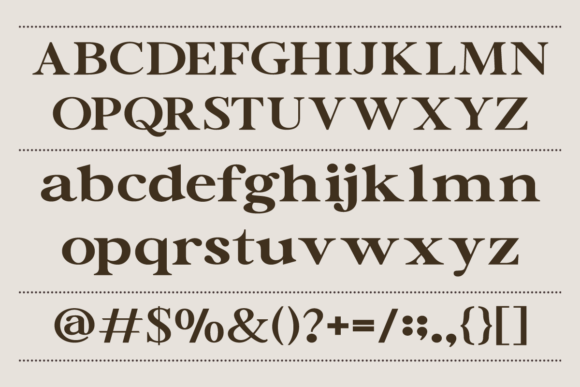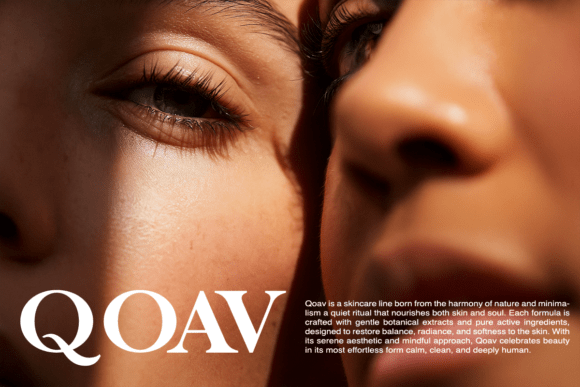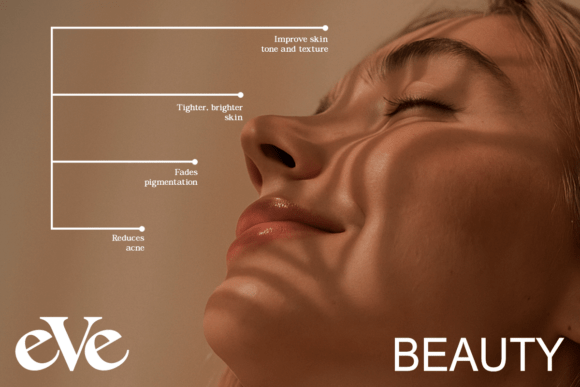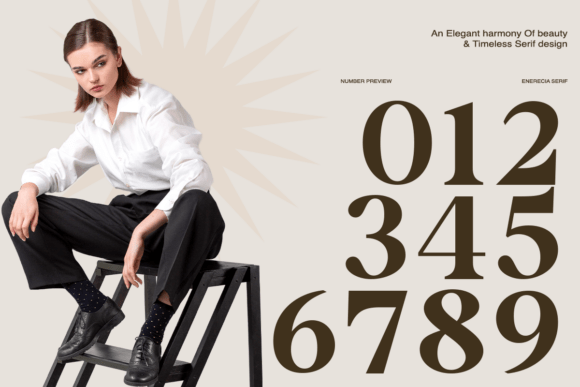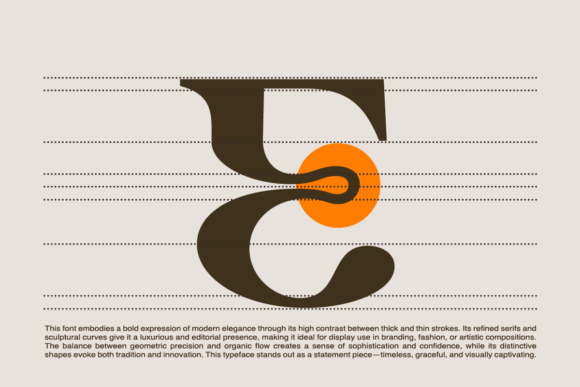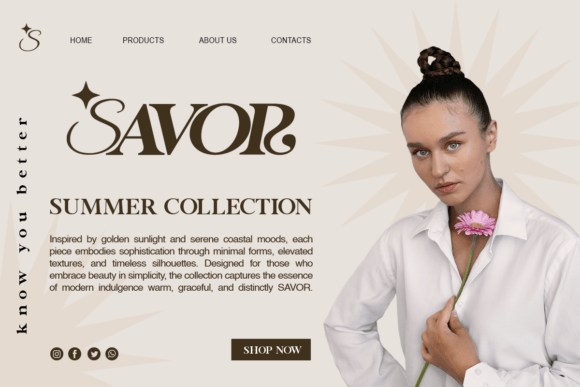
Introducing Enerecia Font: The Epitome of Modern Sophistication and Classic Artistry
In the realm of typography, few fonts manage to strike a balance between modern sophistication and classic artistry. Enerecia Font is one such exceptional typeface that seamlessly merges geometric precision with organic rhythm, resulting in a timeless visual flow. This poetic serif font is designed to evoke harmony between strength and grace, making it perfect for projects that demand both artistic expression and professional refinement.
The Distinctive Features of Enerecia Font
Enerecia Font boasts several distinctive features that set it apart from other typefaces. Its elegant ligatures, high contrast strokes, and sculptural curves create a luxurious typographic experience that feels effortlessly distinctive. The font’s design is characterized by:
- Elegant Ligatures: Enerecia’s ligatures add a touch of sophistication to any text, making it ideal for editorial layouts, branding, and refined packaging.
- High Contrast Strokes: The font’s high contrast strokes create a sense of drama and elegance, perfect for fashion design, luxury brands, and high-end publications.
- Sculptural Curves: Enerecia’s sculptural curves bring a sense of organic rhythm to the font, balancing out its geometric precision and creating a harmonious visual flow.
Enerecia Font is a versatile typeface that can be used in a wide range of design projects, including:
- Editorial Layouts: Enerecia’s elegant design makes it perfect for use in magazines, newspapers, and books, adding a touch of sophistication to any editorial layout.
- Branding: The font’s luxurious feel makes it ideal for luxury brands, high-end products, and services that demand a sophisticated visual identity.
- Fashion Design: Enerecia’s high contrast strokes and sculptural curves make it perfect for fashion design, adding a touch of drama and elegance to any fashion brand or publication.
- Refined Packaging: The font’s elegant design makes it suitable for use in refined packaging, adding a touch of sophistication to any product.
Why Choose Enerecia Font?
Enerecia Font offers a unique combination of modern sophistication and classic artistry, making it the perfect choice for designers and crafters who demand a high level of refinement and elegance in their work. Here are just a few reasons why you should choose Enerecia Font for your next project:
- Timeless Visual Flow: Enerecia’s elegant design creates a timeless visual flow that will not go out of style anytime soon.
- Luxurious Typographic Experience: The font’s elegant ligatures, high contrast strokes, and sculptural curves create a luxurious typographic experience that feels effortlessly distinctive.
- Perfect Balance of Strength and Grace: Enerecia’s design balances geometric precision with organic rhythm, evoking harmony between strength and grace.
In conclusion, Enerecia Font is a poetic serif font that embodies modern sophistication with a touch of classic artistry. Its elegant ligatures, high contrast strokes, and sculptural curves create a timeless visual flow suited for editorial layouts, branding, fashion design, and refined packaging. Whether you’re a designer or crafter, Enerecia Font is the perfect choice for projects that demand both artistic expression and professional refinement.
With Enerecia Font, you can add a touch of luxury and sophistication to any design project, creating a visual identity that is both elegant and refined. So why settle for an ordinary font when you can have a truly exceptional typeface that will elevate your work to new heights?